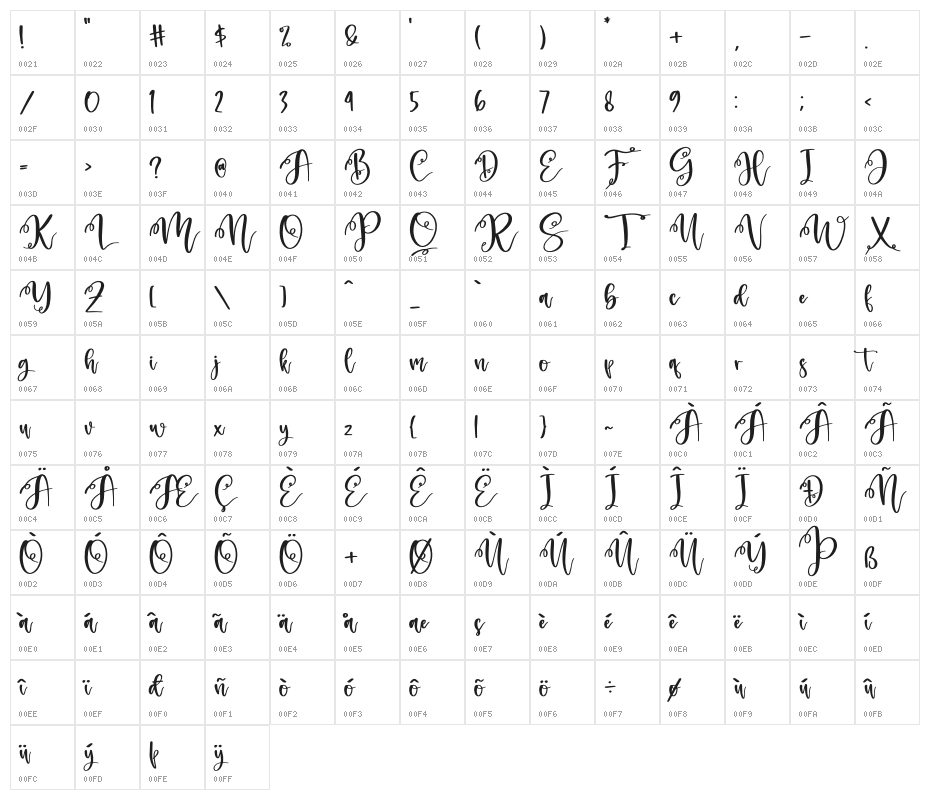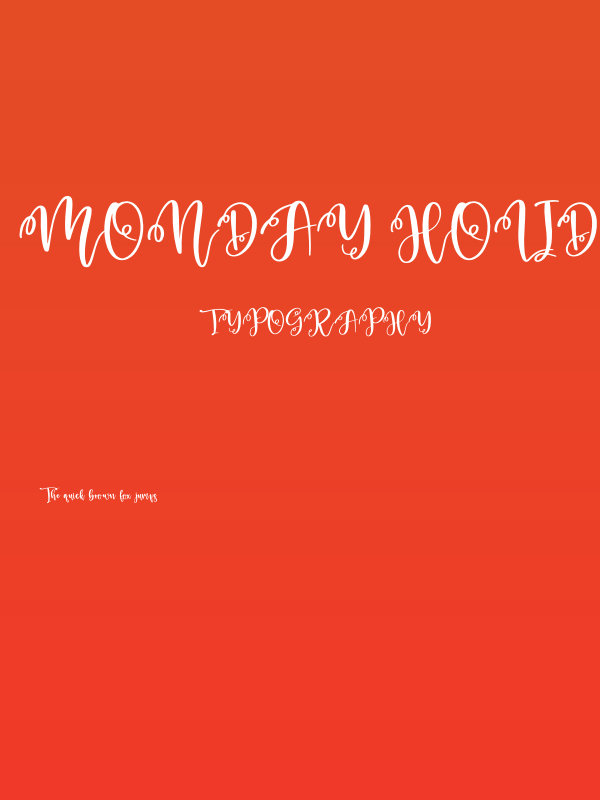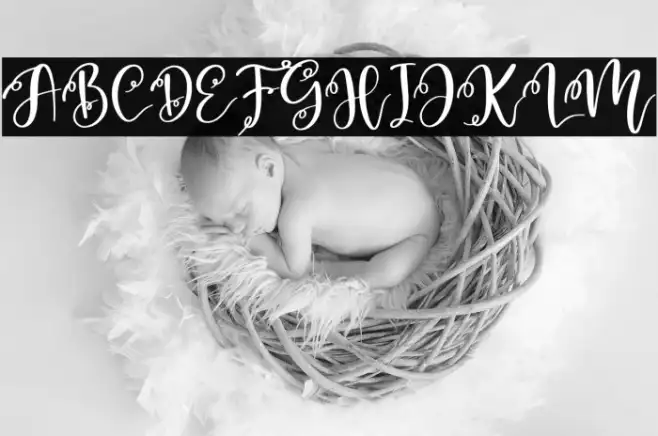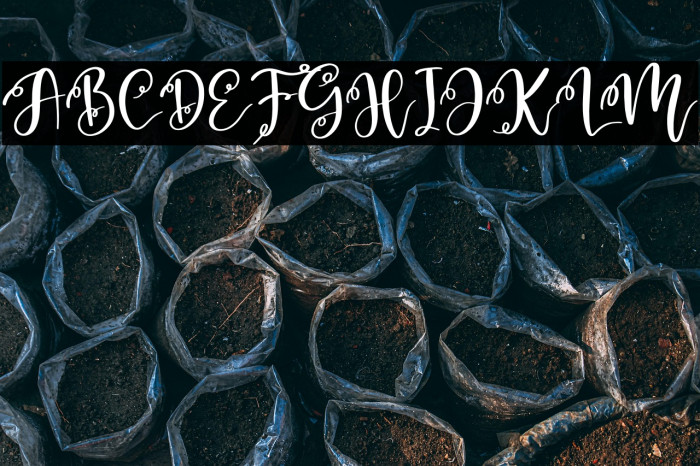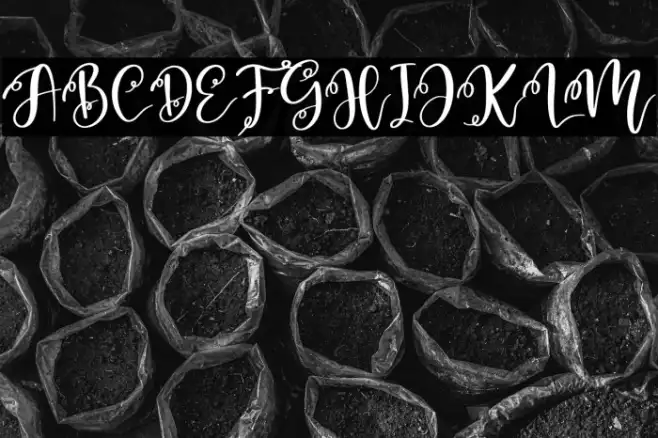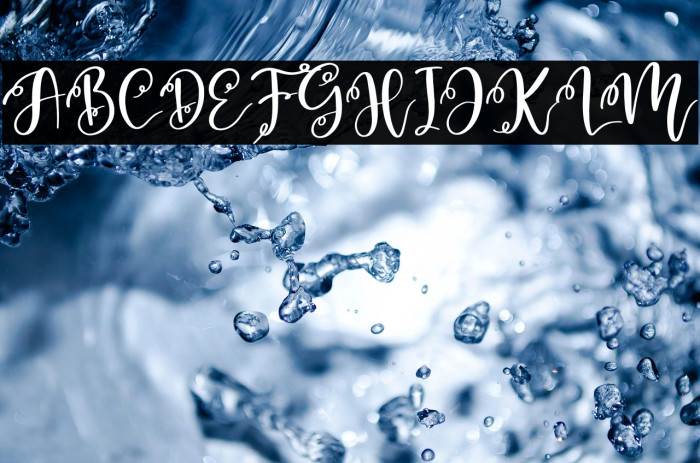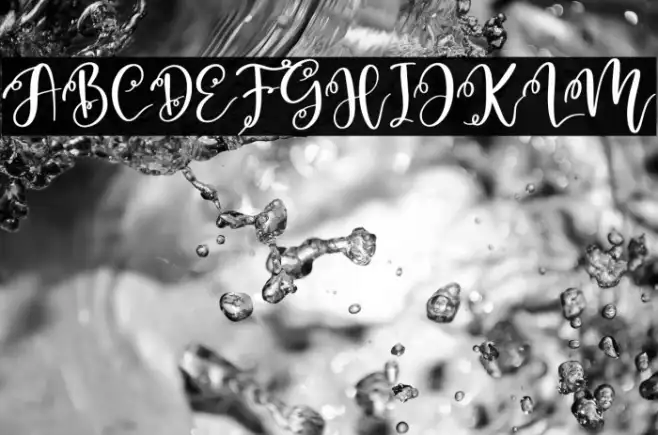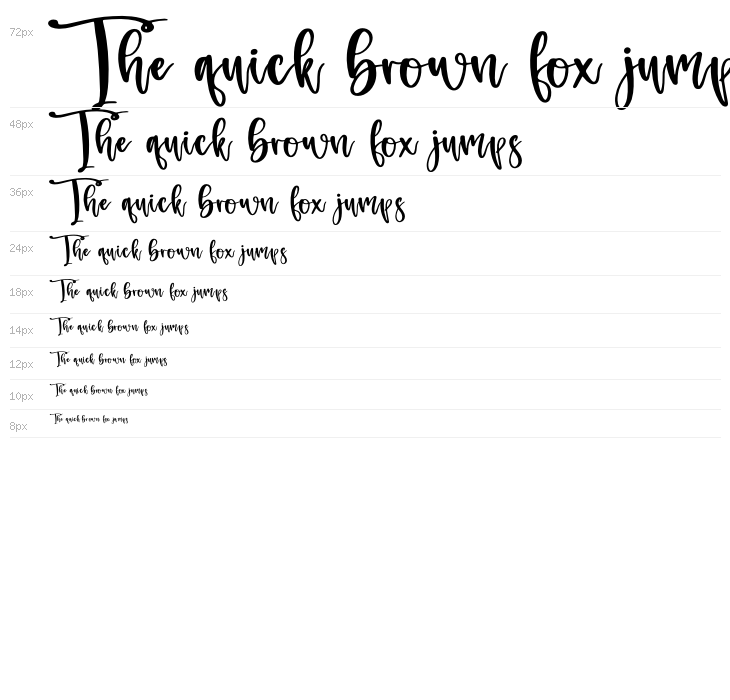
Monday Holiday Font
Monday Holiday Description
This font features a playful and whimsical script style, characterized by its flowing, cursive letters that include decorative swirls and loops. The uppercase letters are particularly ornate, with each character exhibiting unique flourishes that add to the font's charm. The lowercase letters maintain a consistent style, with smooth connections between characters, enhancing readability while preserving the font's artistic flair. Numbers and special characters are designed to match the overall aesthetic, ensuring a cohesive look across all text elements. This font is ideal for projects that require a touch of elegance and creativity.